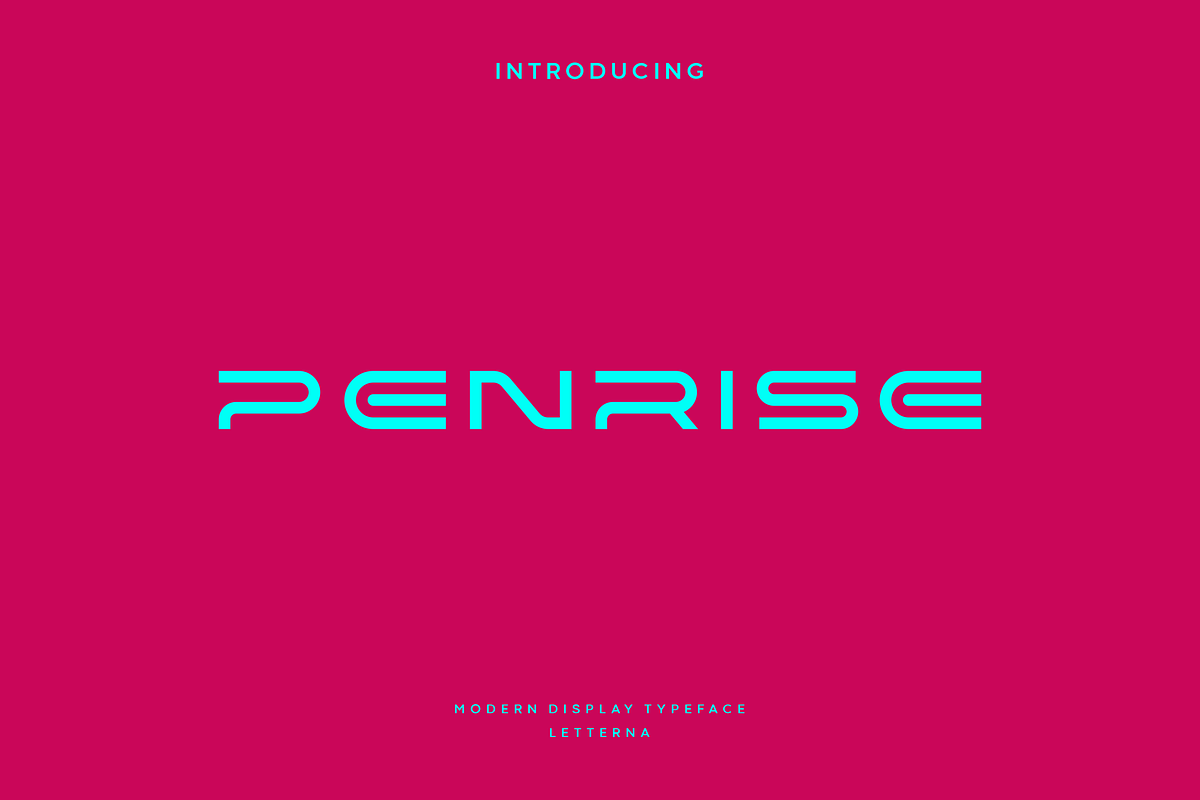
Penrise - Modern Futuristic Typeface Free Download
Penrise - Modern Futuristic Typeface Free Download is a cutting-edge typeface designed to give your projects a bold, forward-thinking vibe. With its sleek, geometric shapes and sharp lines, this font is perfect for tech companies, sci-fi book covers, futuristic branding, and innovative website designs. Its modern appeal blends minimalism with futuristic aesthetics, making it ideal for projects that demand attention and make a statement. Whether you're working on a high-tech product launch or designing a visionary logo, Penrise - Modern Futuristic Typeface Free Download gives you a chance to test its innovative style in personal or concept work before purchasing a commercial license. Step into the future of design with this sleek and impactful font that pushes the boundaries of modern typography.